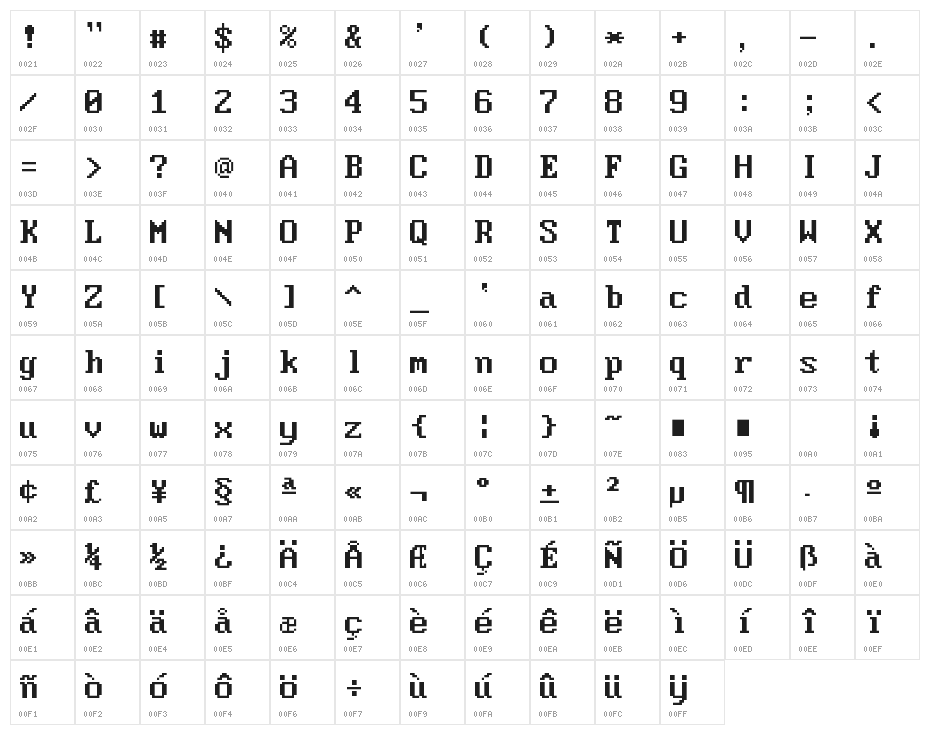
Modern DOS 8x16 Font
Modern DOS 8x16 Description
This font features a classic pixelated design reminiscent of early computer displays and video games. Each character is constructed with a grid-like precision, giving it a distinctly retro and digital appearance. The uppercase and lowercase letters maintain a consistent height, contributing to a uniform and monospaced look. Numbers and special characters are crafted with the same pixelated style, ensuring readability and a cohesive aesthetic. The font's simplicity and clarity make it ideal for projects that aim to evoke nostalgia or require a clear, digital feel.
Jayvee Enaguas